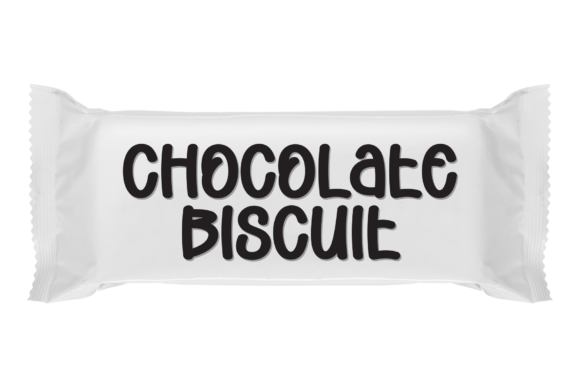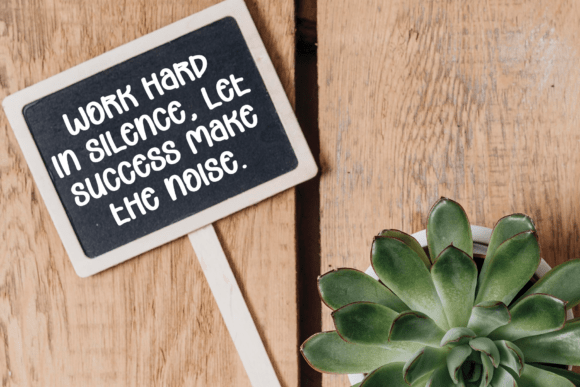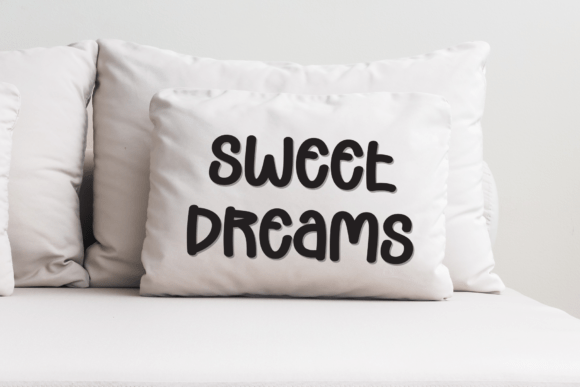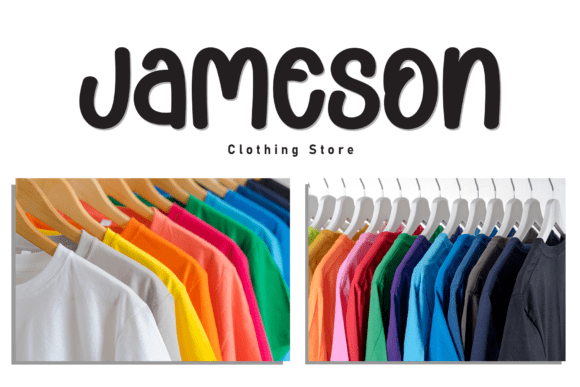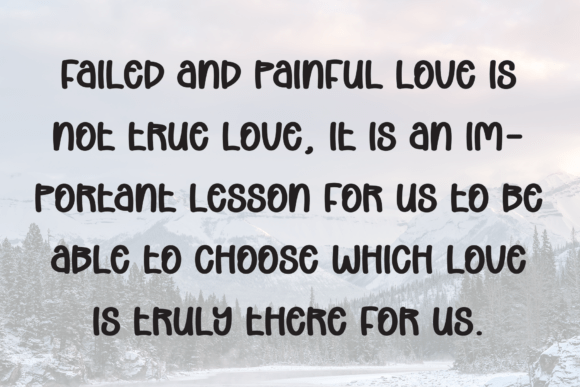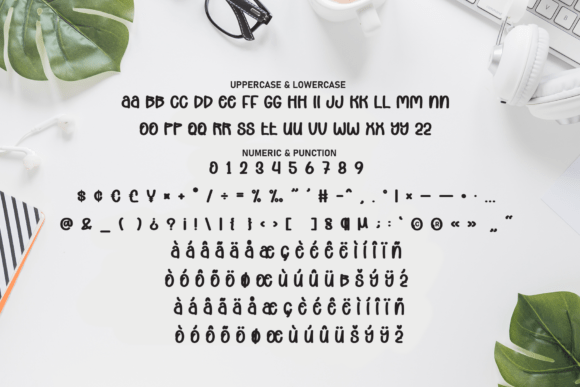
Introducing Happy Weekend Font: The Perfect Addition to Your Whimsical Designs
Are you tired of using the same old fonts in your designs? Do you want to add a touch of sweetness and friendliness to your projects? Look no further than Happy Weekend Font, a charming handwritten display font that’s sure to bring a smile to your audience’s faces. In this article, we’ll dive into the features and benefits of Happy Weekend Font, and explore how you can use it to elevate your designs.
Handwritten fonts have a way of adding a personal touch to any design. They evoke feelings of warmth, friendliness, and approachability, making them perfect for projects that require a human touch. Happy Weekend Font is no exception. This beautifully crafted font is designed to embody the essence of sweetness and friendly vibes, making it an excellent choice for a wide range of design applications.
Adorable Aesthetic Appeal
So, what sets Happy Weekend Font apart from other fonts? For starters, its adorable aesthetic appeal is sure to capture attention. The font’s playful and whimsical design makes it perfect for crafting delightful wedding invites, cards, and other designs that require a touch of fun. Whether you’re a designer, crafter, or DIY enthusiast, Happy Weekend Font is sure to inspire your creativity.
Perfect for Whimsical Designs
Happy Weekend Font is designed to bring a touch of whimsy to your designs. Its friendly and approachable vibe makes it perfect for projects that require a playful touch. Here are just a few ideas for using Happy Weekend Font:
- Wedding invitations: Add a touch of romance and whimsy to your wedding invites with Happy Weekend Font.
- Greeting cards: Create delightful greeting cards for birthdays, holidays, and other special occasions.
- DIY projects: Use Happy Weekend Font to add a personal touch to your DIY projects, such as scrapbooking, journaling, and crafting.
- Branding: Use Happy Weekend Font to create a friendly and approachable brand identity for your business.
Infuse Your Designs with a Playful Touch
Happy Weekend Font is more than just a font – it’s a design element that can elevate your projects and bring them to life. With its captivating design and playful vibe, this font is sure to inspire your creativity and help you create designs that stand out from the crowd.
So, how can you infuse your designs with a playful touch using Happy Weekend Font? Here are a few tips:
- Use Happy Weekend Font in combination with other design elements, such as illustrations and graphics, to create a unique and eye-catching design.
- Don’t be afraid to get creative and try new things – Happy Weekend Font is designed to be versatile and adaptable.
Why Choose Happy Weekend Font?
So, why choose Happy Weekend Font over other fonts? Here are just a few reasons:
- Unique design: Happy Weekend Font has a unique and captivating design that’s sure to set your designs apart.
- Versatility: This font is versatile and adaptable, making it perfect for a wide range of design applications.
In conclusion, Happy Weekend Font is a charming handwritten display font that’s perfect for designers and crafters looking to add a touch of sweetness and friendliness to their projects. With its adorable aesthetic appeal and playful vibe, this font is sure to inspire your creativity and help you create designs that stand out from the crowd. So why wait? Download Happy Weekend Font today and start infusing your designs with a playful touch!